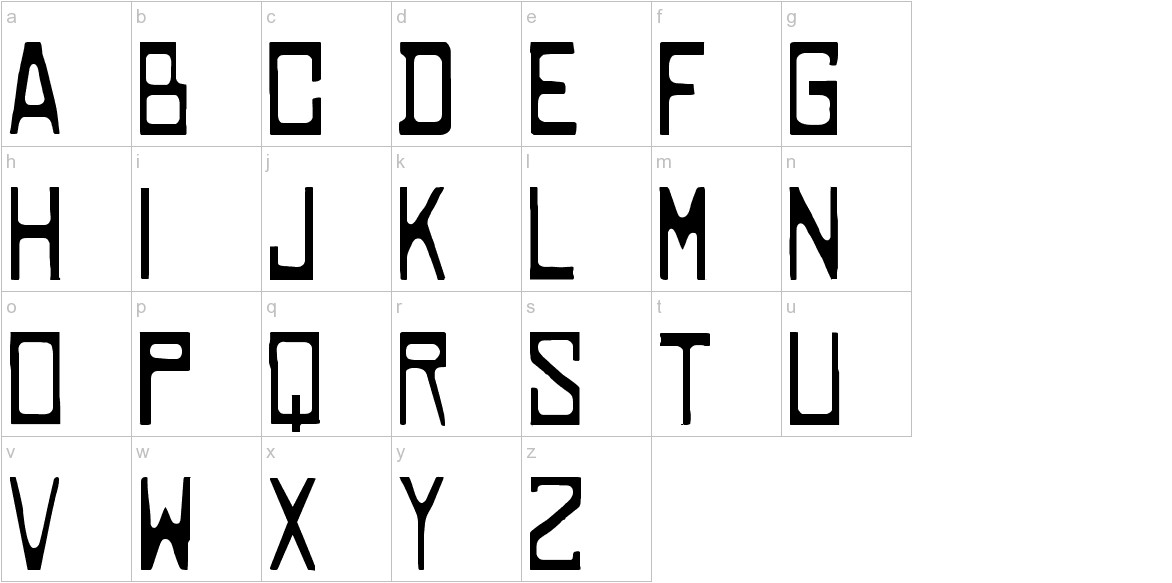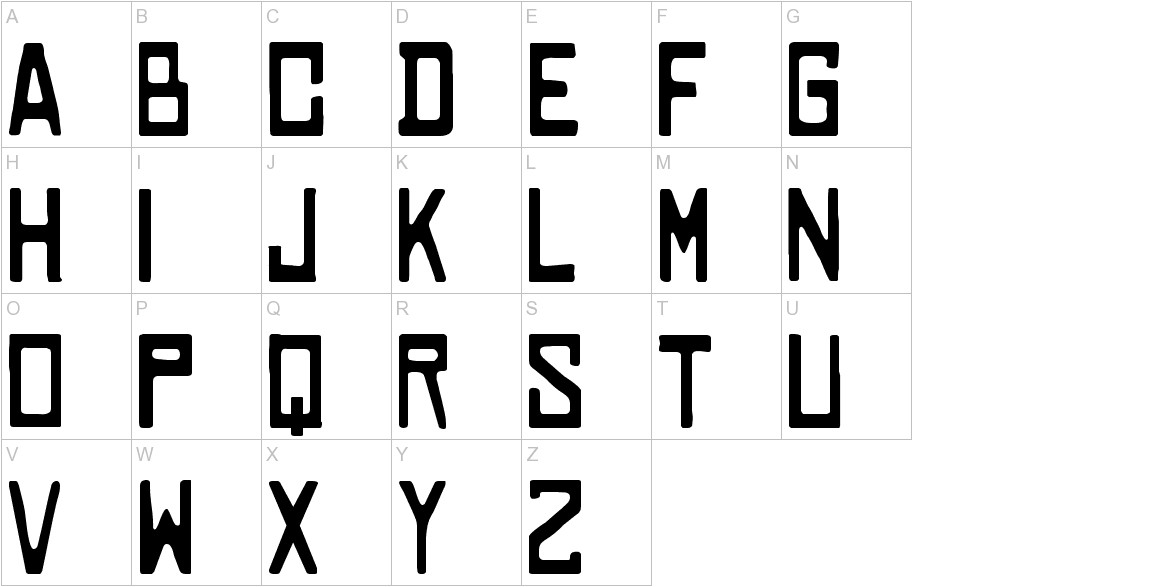
COWABUNGA
I have always loved this Eastman and Laird comic book franchise I wanted to create a rough edged font based on the latest 2012 nickelodeon TV series titles the totally bodacious first release did not included numbers... The latest version 2.013 has now been released this includes the missing numbers plus extra tubuloso characters..